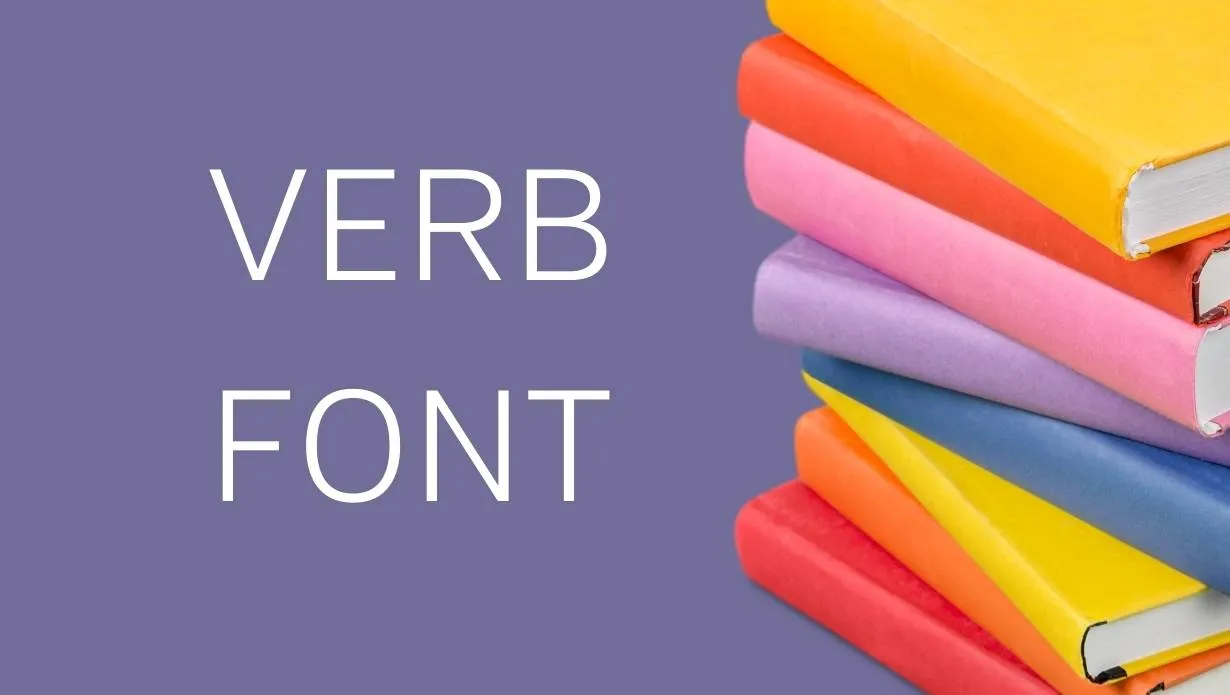
About Verb Font Free Download
Verb Font Free Download is a modern typeface available in multiple variants and styles.
- Verb Font Regular
- Verb Font Bold
- Verb Font Italic